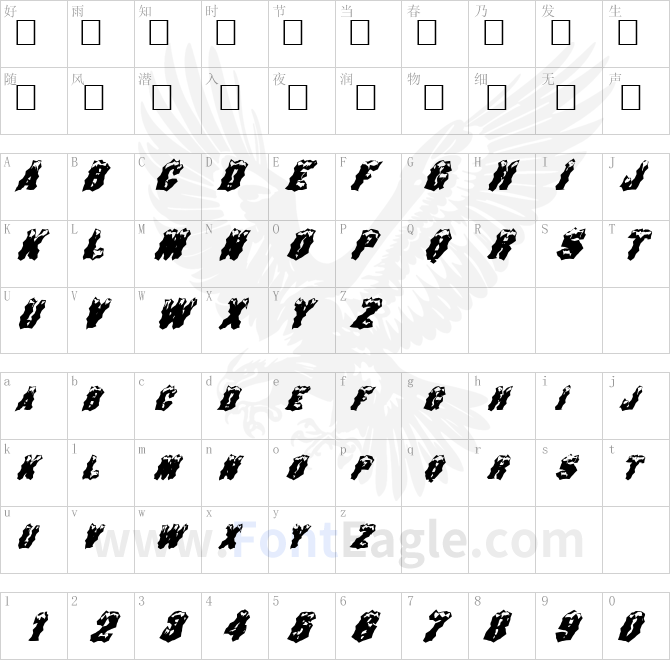
FZ-WACKY-29-ITALIC is a great font, widely used in graphic design, single-page menu design, poster design and other fields, and is deeply loved by designers.FZ-WACKY-29-ITALIC download.